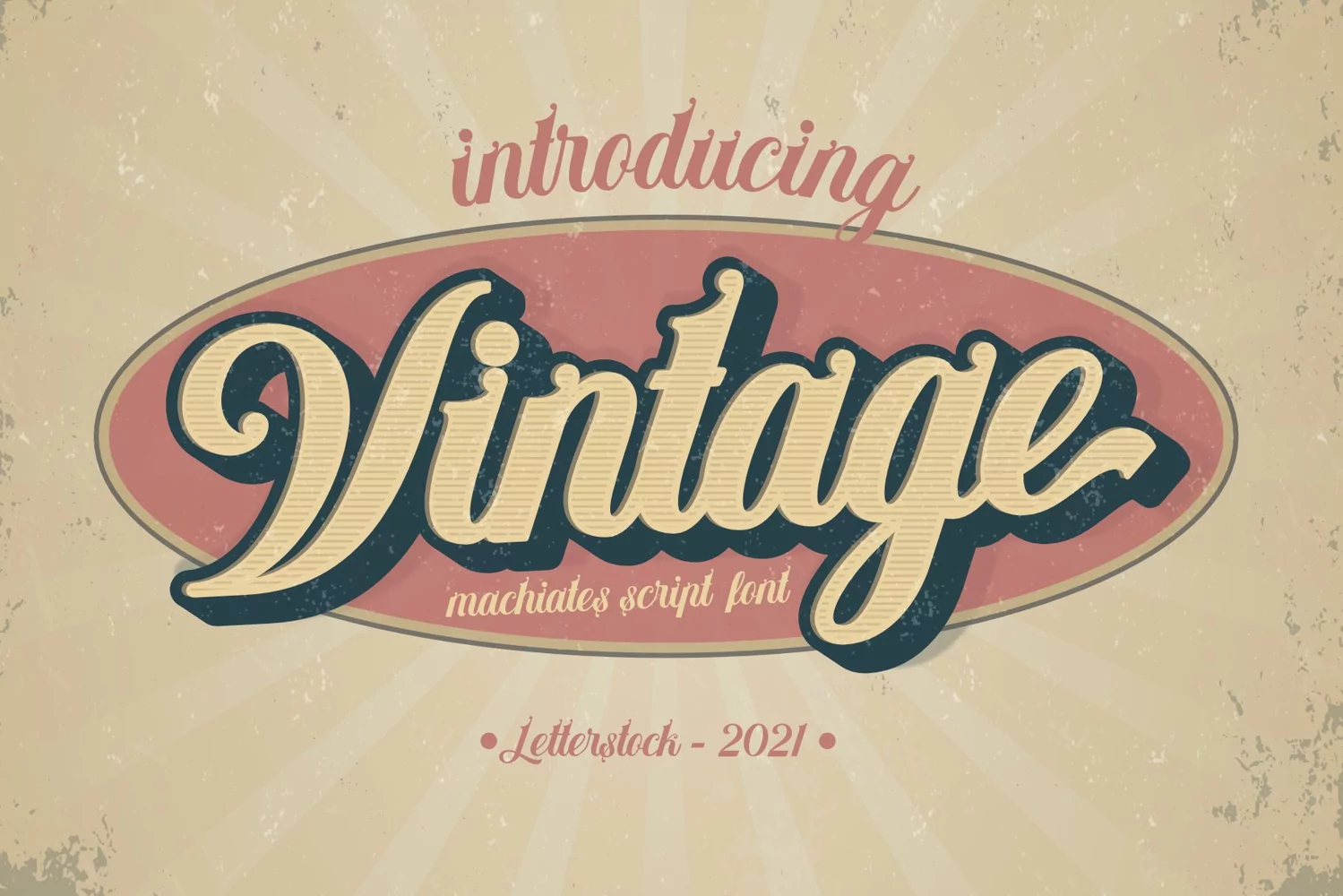
Machiates
**Machiates Font**
This pair was inspired by the retro motorbike poster design that i saw on some coffee shop, It was crafted by hand specially to add natural handmade feeling in its brand identity than i make it clean with pentool.
Machiates font has 207 character set included
Machiates Font is very good looking in logo, labels, t-shirt prints, product packaging, invitations, advertising and others.